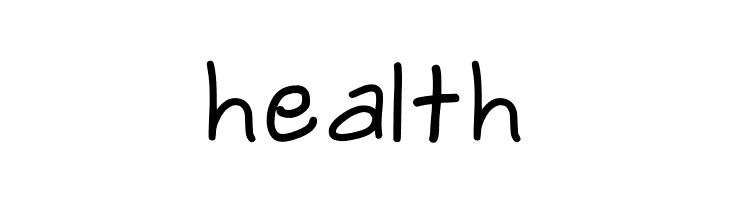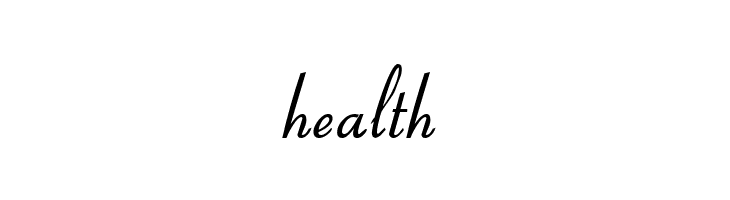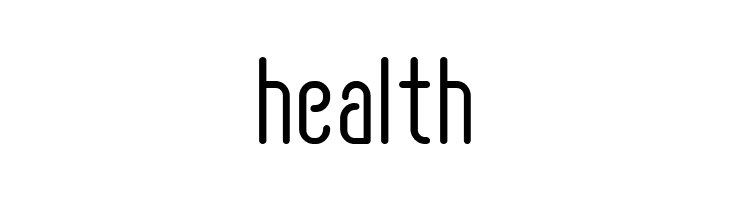
( Walter Paggioro - www.raptuscreativi.com/site/fields/type-design/ )
A modern, geometric font with rounded edges and uniform stroke width.
A bold, artistic font with geometric and abstract elements, ideal for creative projects.
( Eric Perlin )
A playful outline font with a bold, double-line effect.
( Pretty Little Line Designs - prettylittlelinedesigns.com )
A whimsical font with characters inside cat outlines, perfect for playful designs.
( Pretty Little Line Designs - prettylittlelinedesigns.com )
A playful, casual handwritten font with smooth, flowing lines and a relaxed style.
( Reference Type Foundry )
An elegant, flowing script font with ornate uppercase and cohesive lowercase letters.
( Sprots )
A whimsical, hand-drawn font with irregular shapes and playful strokes.
A modern, narrow font with sleek, elongated characters.
A playful, modern sans-serif font with rounded edges and balanced spacing.
A bold, geometric font with a futuristic and tech-inspired design.